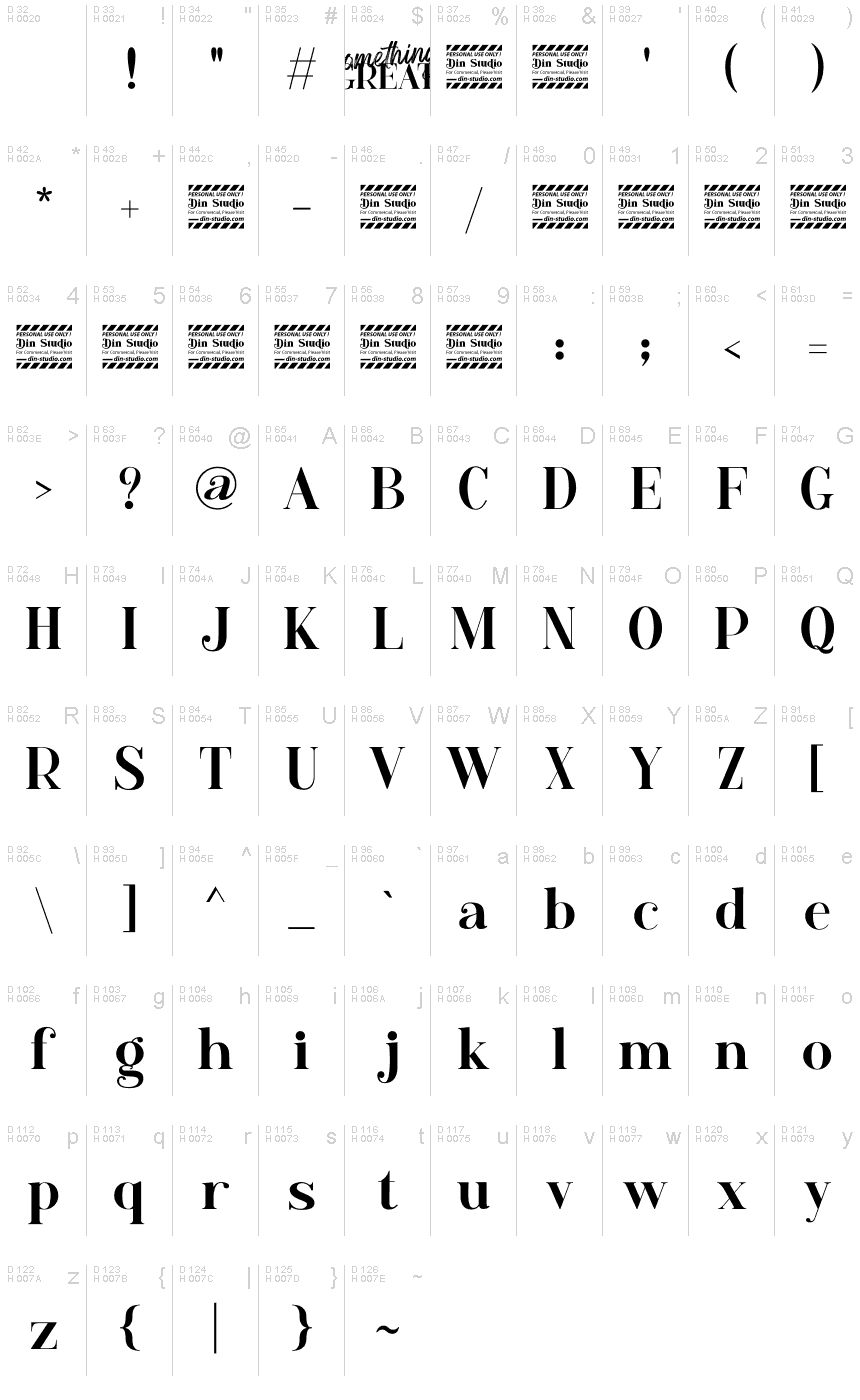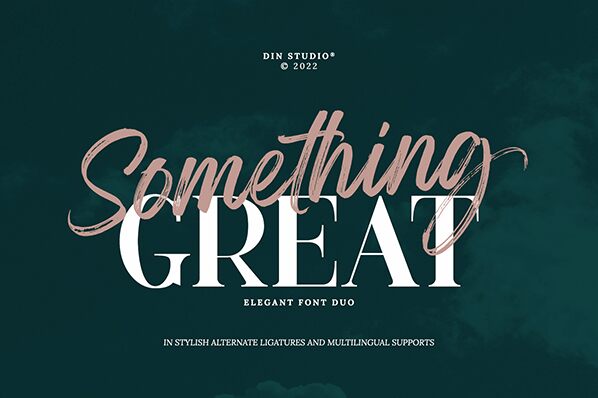
Something Great Serif Personal
The Something Great Serif, designed by Din Studio, is an exquisite and refined semi-bold font. With its elegant serif style, this font is perfect for a wide range of projects that require a touch of sophistication and class.
From luxurious brand identities to high-end editorial designs, Something Great Serif adds a timeless charm that captivates readers. Its versatility shines through in print materials such as magazines and brochures, as well as digital platforms like websites and social media graphics.
Elevate your next project with the unmatched elegance of Something Great Serif.